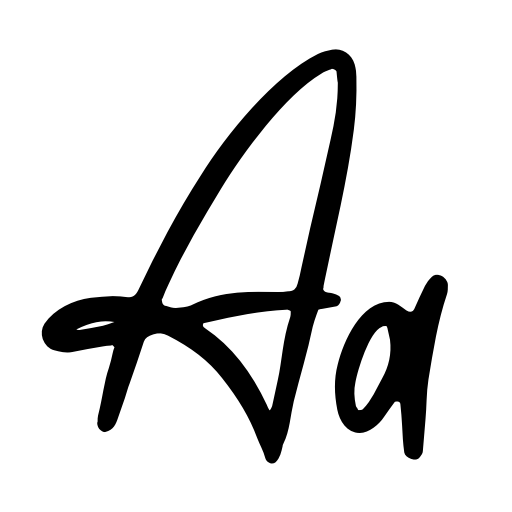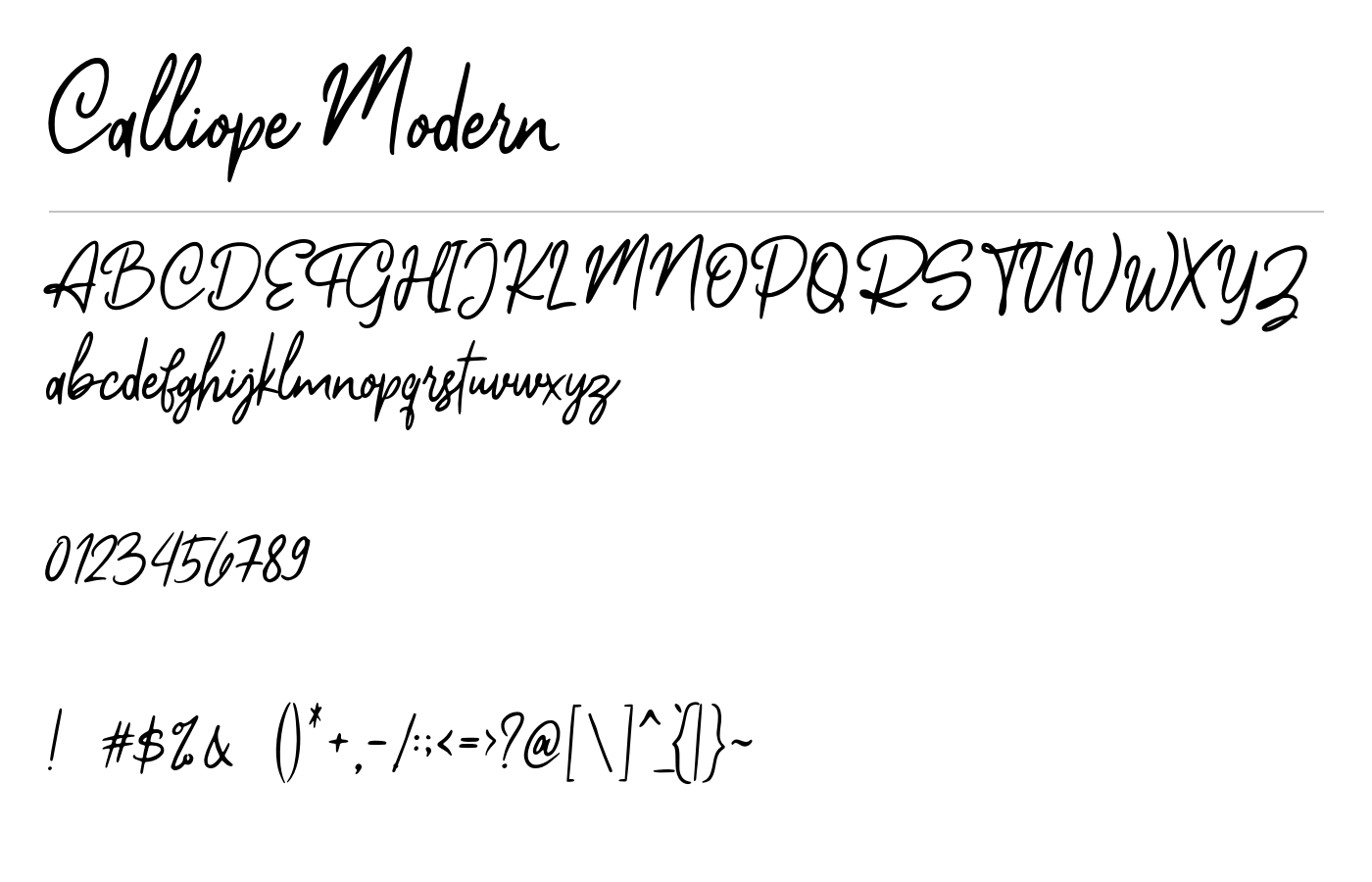
Calliope Modern is a lively and elegant script font with a handwritten, flowing style that feels casual yet refined. Its slender, slightly slanted letterforms and consistent stroke weight give it a modern and approachable character, making it ideal for creative branding, invitations, and stylish editorial designs where a personal touch is desired. This font works best in headlines or short text to showcase its charming and dynamic personality.
Calliope Modern Font
About Calliope Modern Font
| Font family | Calliope Modern Font |
| Designer | Ivan Yahya |